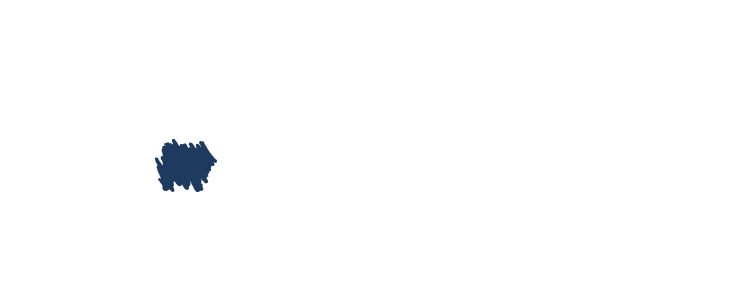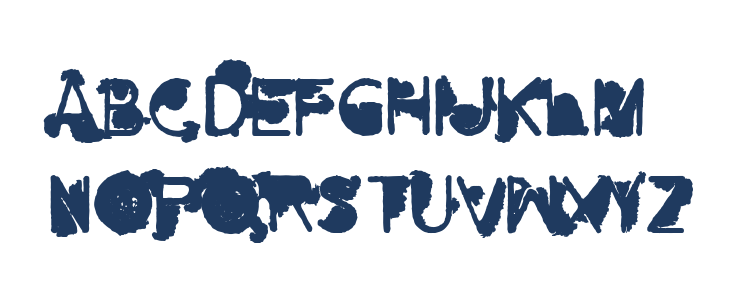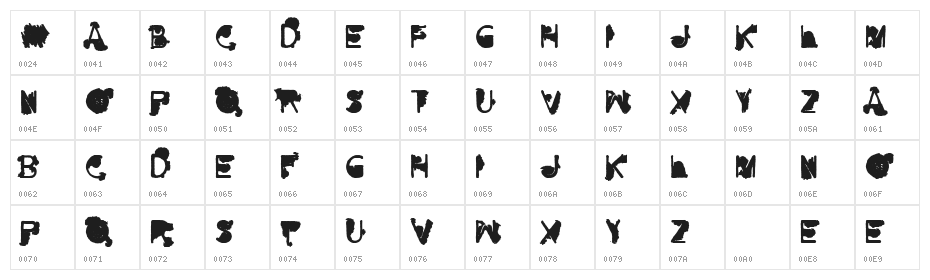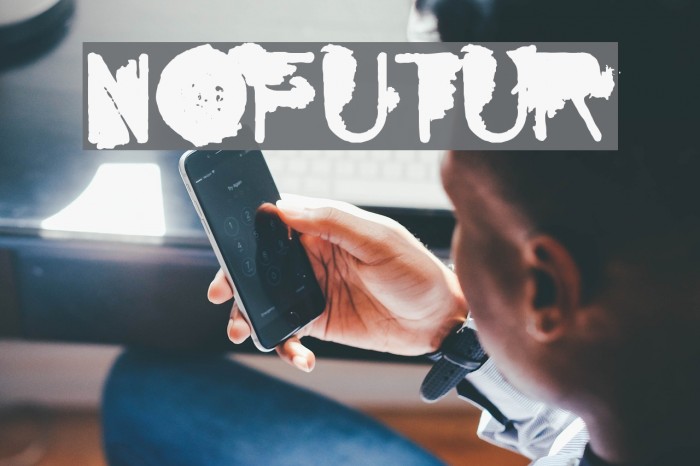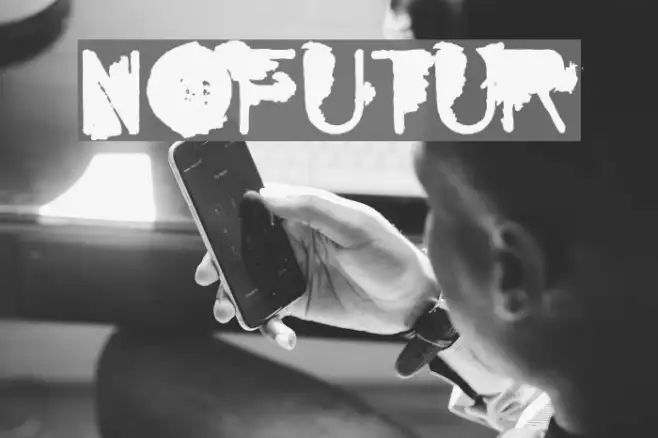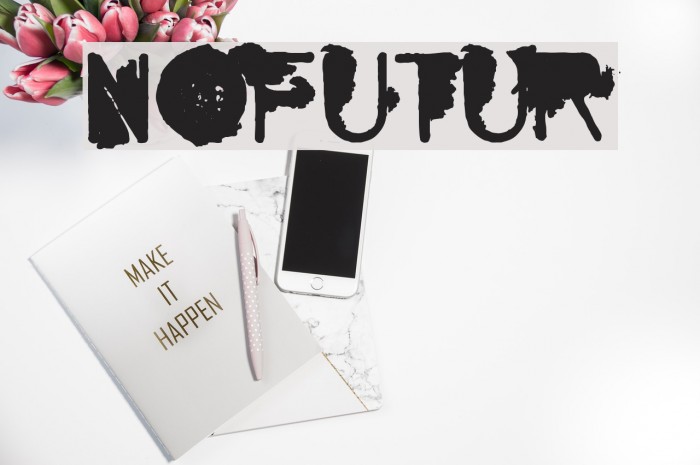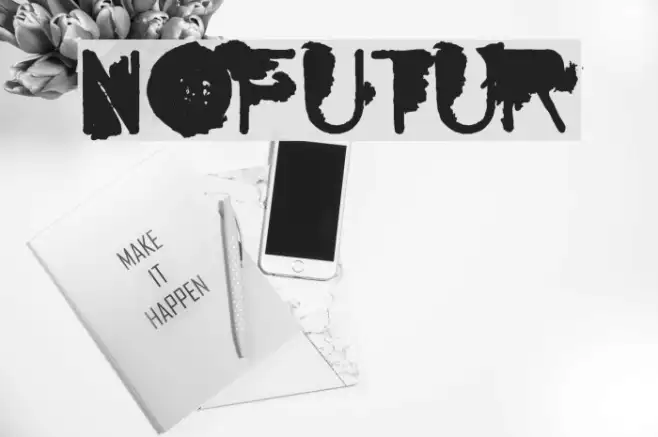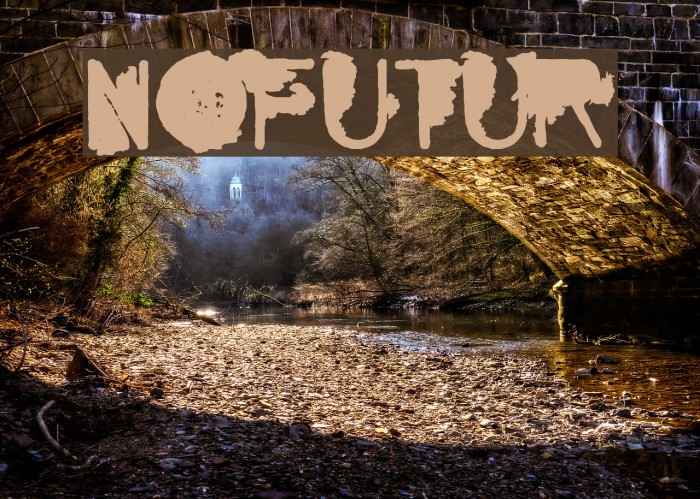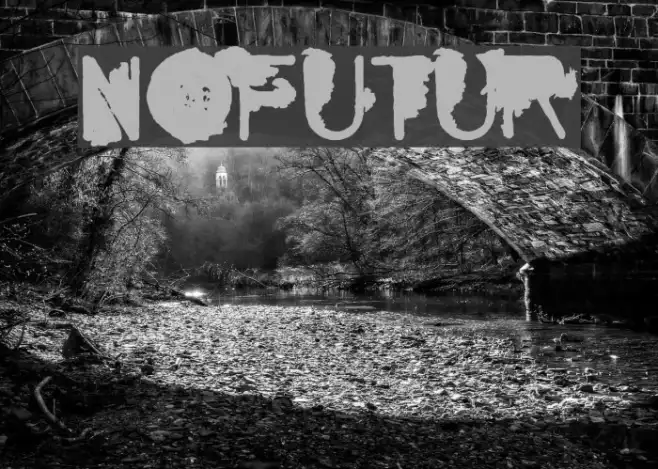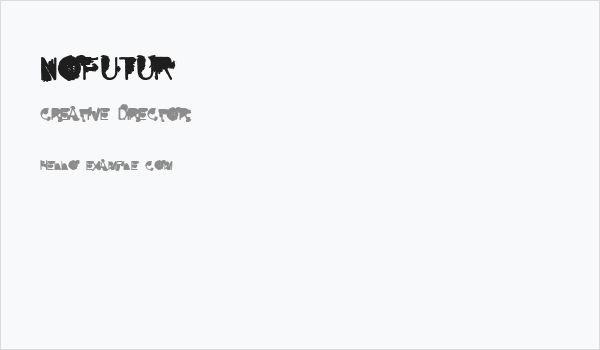
NOFUTUR Font
NOFUTUR Description
This font features a bold and distressed style, with each character appearing as if it has been roughly painted or stamped. The letters are irregular and have a grunge aesthetic, with uneven edges and varying thicknesses. This creates a dynamic and edgy look, making it ideal for projects that require a raw and unconventional feel. The uppercase and lowercase letters maintain this rugged appearance, while the numbers and special characters follow suit, ensuring a cohesive design throughout. The font's unique style is perfect for creating eye-catching headlines or artistic designs that stand out.
| Overall Style | Grunge, Artistic |
| Use Case | Headlines, Artistic designs, Branding |
| Proposed Projects | Ideal for album covers, posters, streetwear branding, or any project needing an edgy, artistic touch. |